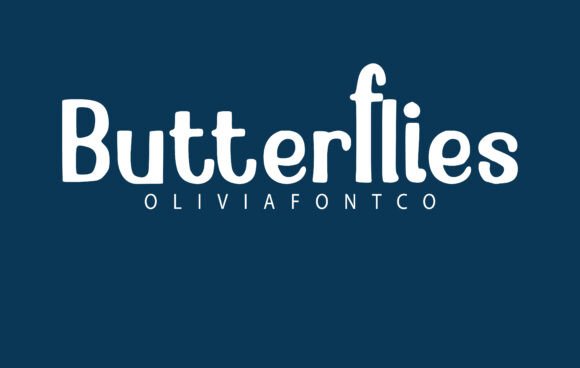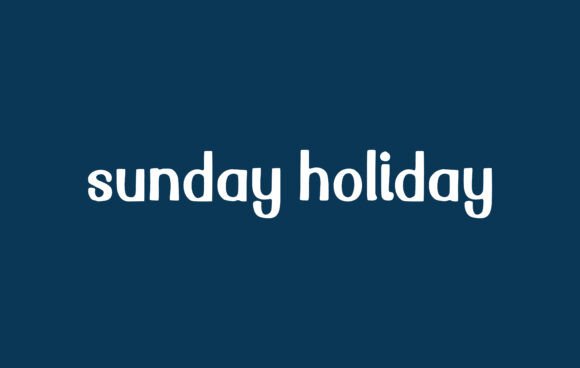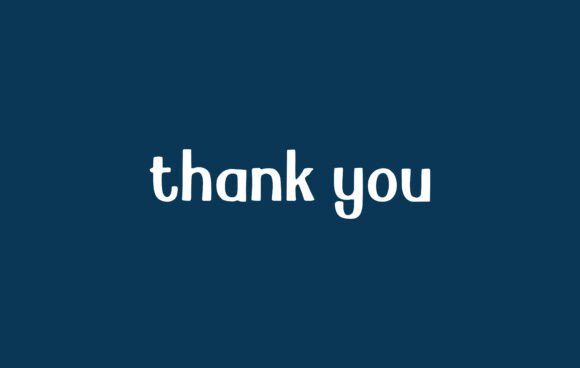
Butterflies Font: A Cute Handwritten Font for DIY & Cricut Projects
About the Butterflies Font
Unleash your creativity with Butterflies Font, a versatile font perfect for a wide range of applications. Butterflies font is an authentic handwritten font with a romantic touch. Expertly designed to be a true favorite, this font has the potential to take your creative ideas to the highest level
Butterflies Font’s romantic, handwritten style shines in headlines, short text blocks on invitations or social media posts, and branding applications where a touch of personal warmth is desired. It works exceptionally well for projects emphasizing handcrafted aesthetics, like artisanal food packaging or boutique branding. However, its delicate nature makes it less suitable for body text or UI elements requiring high legibility at smaller sizes.
Consider pairing Butterflies Font with a clean sans-serif like Lato for a balanced contrast, or a classic serif such as Garamond for a more traditional feel. For a playful touch, a geometric sans-serif such as Montserrat could work well. The overall personality is best described as charming and elegant, yet approachable.
Avoid using Butterflies Font in projects demanding strong readability or a modern, minimalist aesthetic. Its charm lies in its slightly imperfect, hand-drawn quality; leveraging this unique trait in the right context will highlight its strengths.
Butterflies Font Usage Examples
Butterflies Font Example